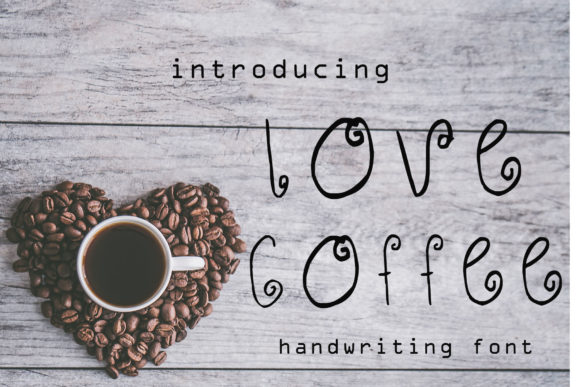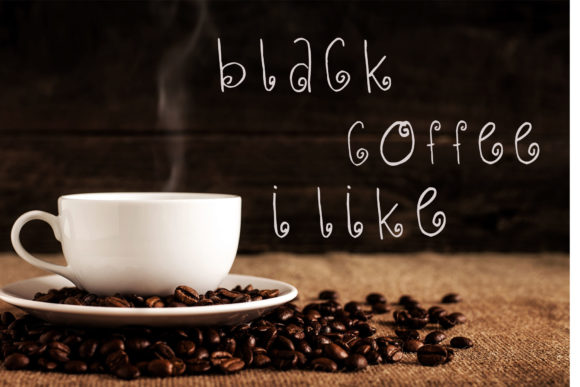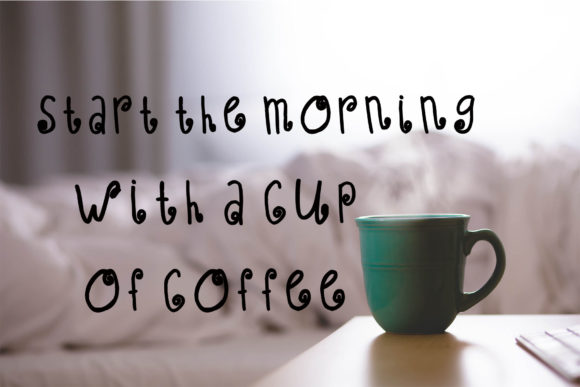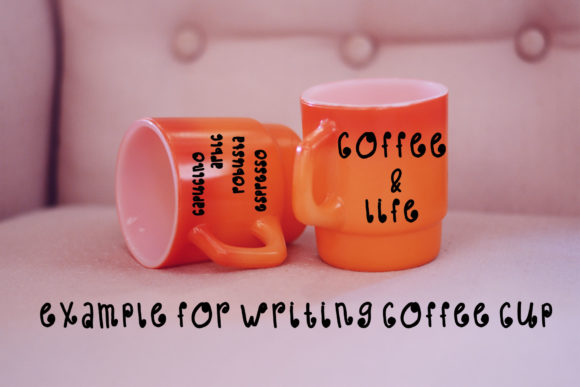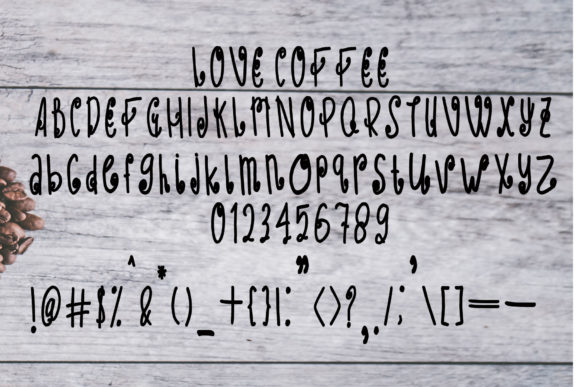
Love Coffee Font
About Love Coffee Font
Love Coffee is loaded with caffeine and delivers a quirky and slightly nervous script. It’s great for making any text stand out.